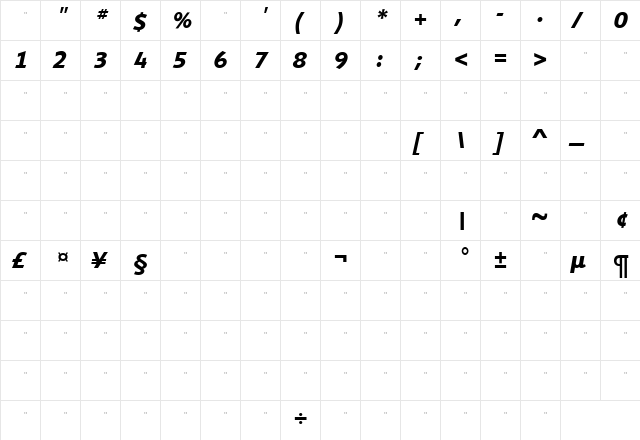
ShinnBoldItalicTab Regular
| Foundry | Red Rooster Typefounders |
Design Context for ShinnBoldItalicTab Typeface
ShinnBoldItalicTab offers clean, dependable letterforms without strong stylistic allegiance, making it a practical choice for designers who need flexibility. The dynamic lean of this cut emphasises speed and emphasis in any layout. The heavy weight commands attention and anchors typographic hierarchies.